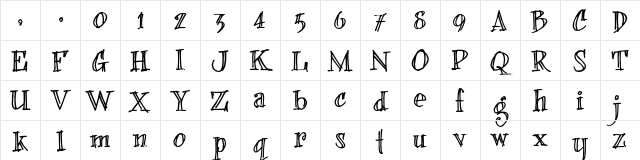
Complete bearerFond Regular glyph index. Displaying only characters natively supported by bearerFond Regular font.
bearerFond is a composed and adaptable typeface that performs quietly and consistently across a wide range of design contexts.
Who designed the bearerFond Regular font?